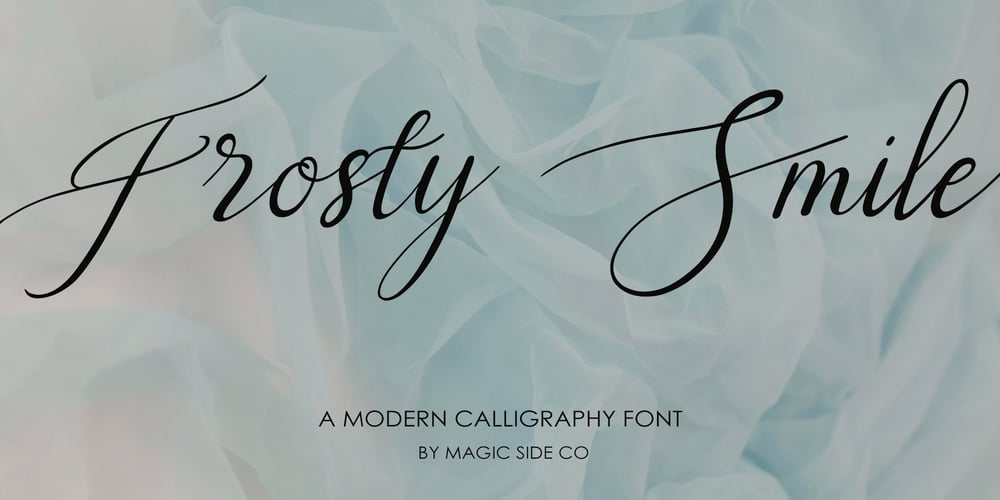
Frosty Smile Font Family was designed by published by Magic Side Co. Frosty Smile contains 2 styles and family package options. Frosty Smile is a charming and playful script typeface inspired by the warmth and cheer of the holiday season. Its flowing, handwritten style captures the essence of joy and creativity, making it an ideal choice for designs that need a touch of personality and whimsy. The typeface features smooth, rounded strokes and casual letterforms, creating a relaxed yet polished look.